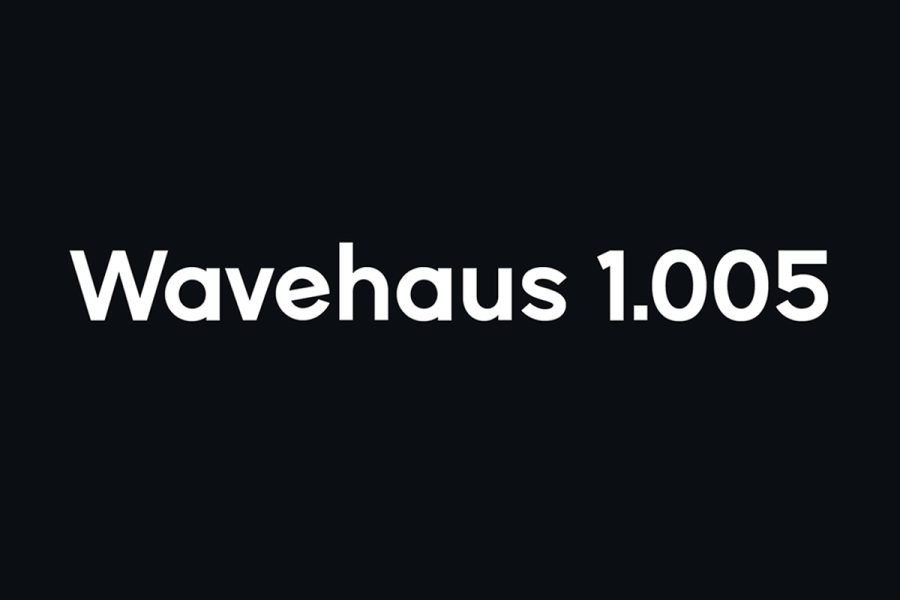
Wavehaus Sans Free Typeface
Wavehaus Sans Free Typeface is a Geometric Sans Serif typeface family with 6 weights. This family includes a thin, light, book, semibold, bold and extra bold font. In addition, it offers you uppercase and lowercase characters, numerals and most common other characters. This modern sans is ideal for the headline, editorial, magazine, product packaging and so much more!